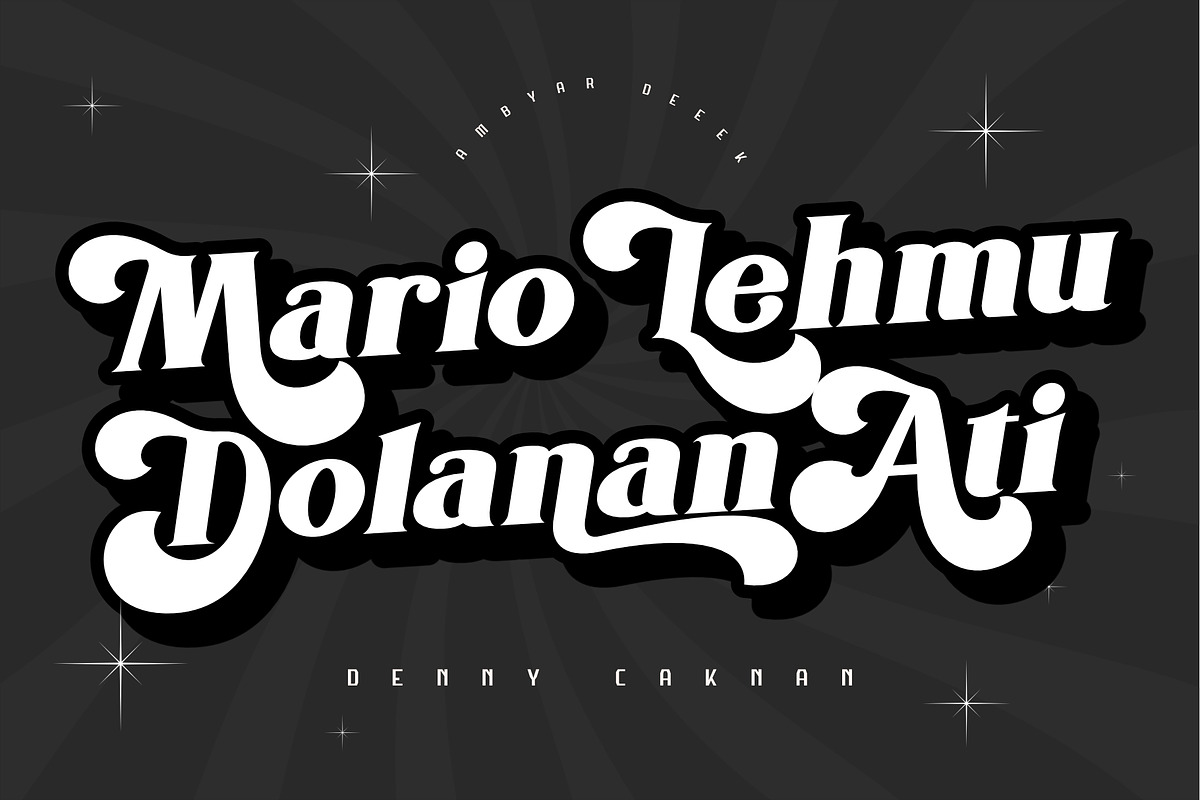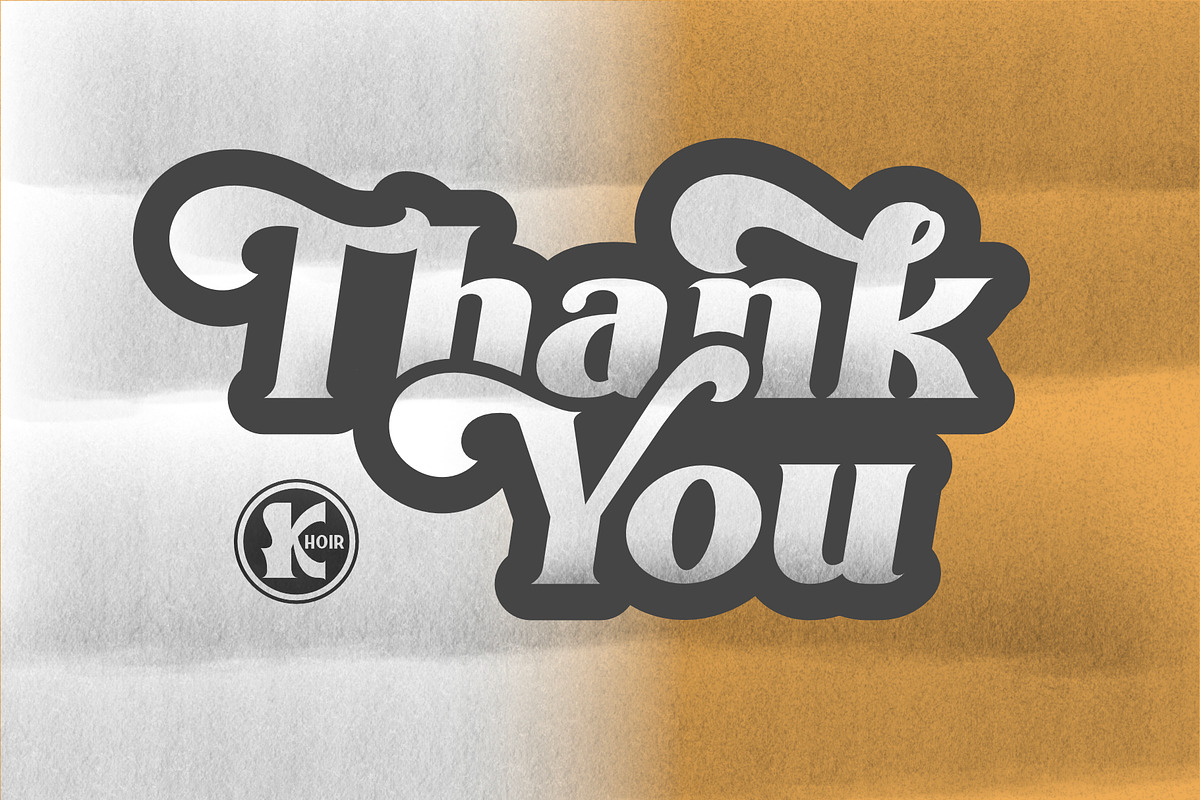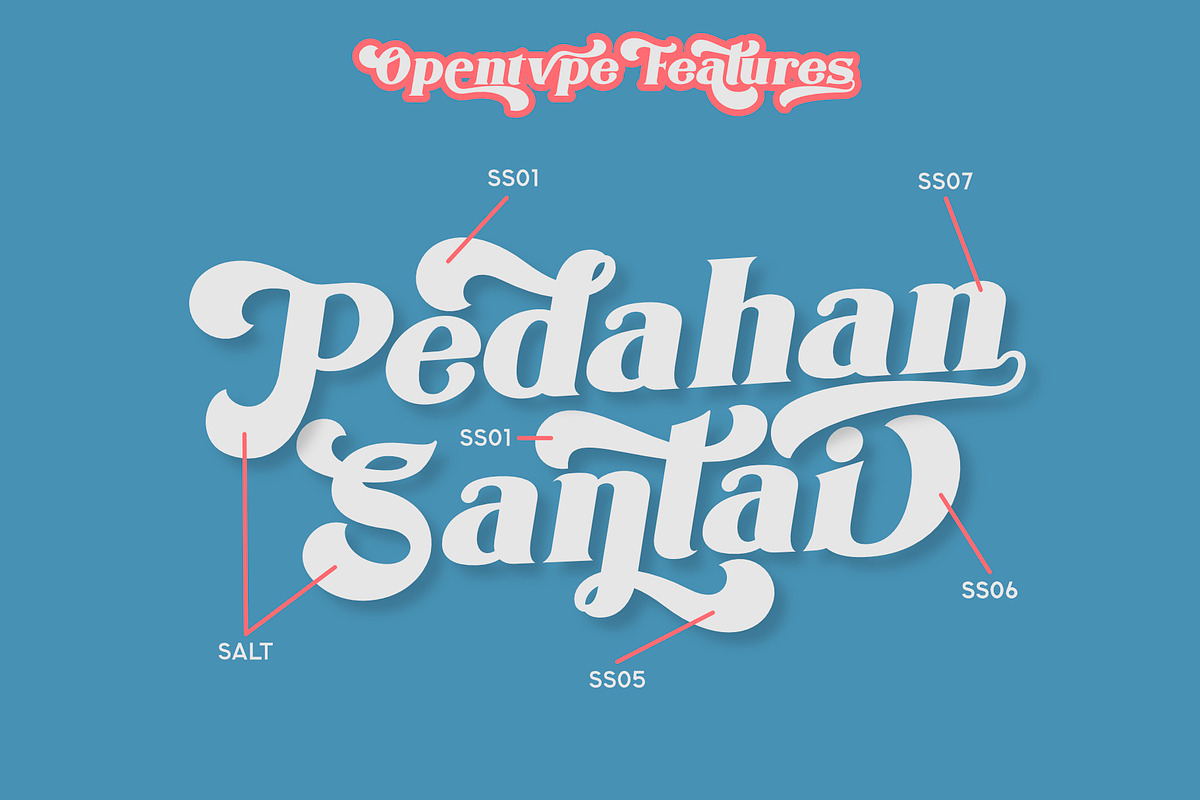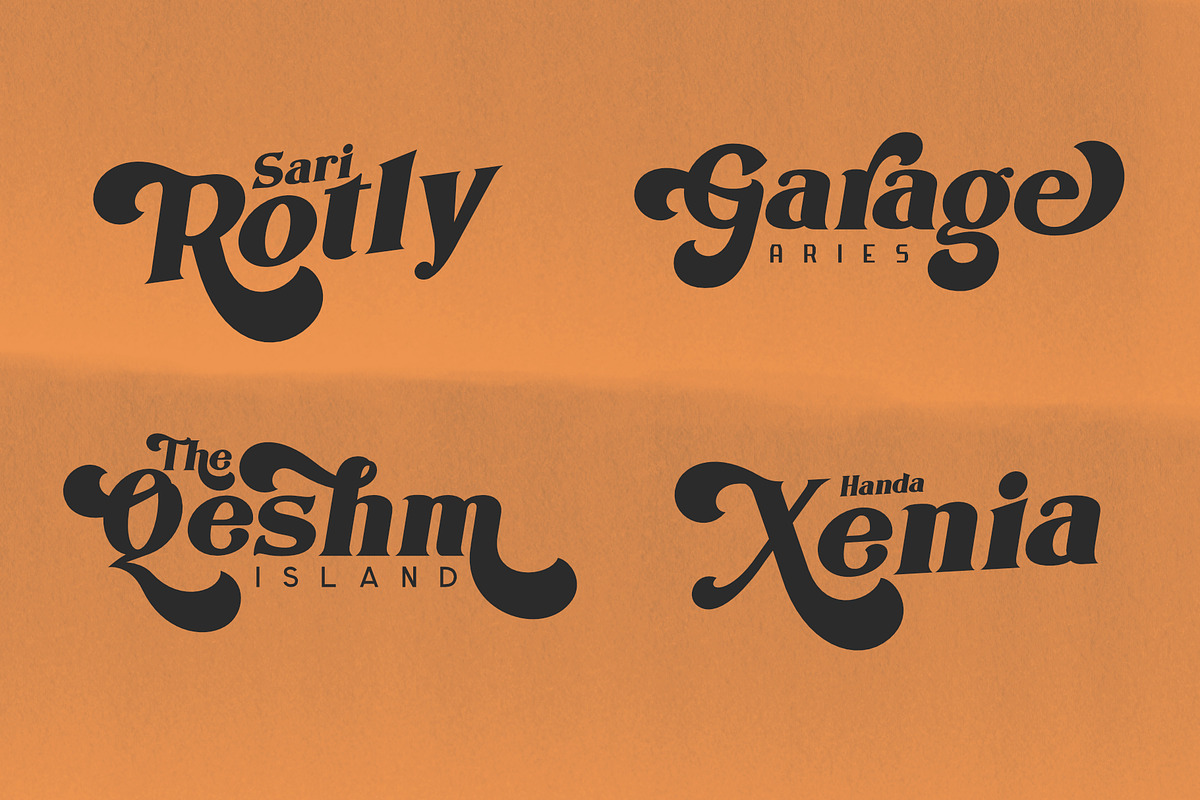
The Houls
Introducing The Houls
Introducing the new The Houls font, a retro-style serif font inspired by typographic designs from the 60s to the 70s, Houls has a variety of OpenType Features fonts, so that it can help you create the design you want, so what are you waiting for?